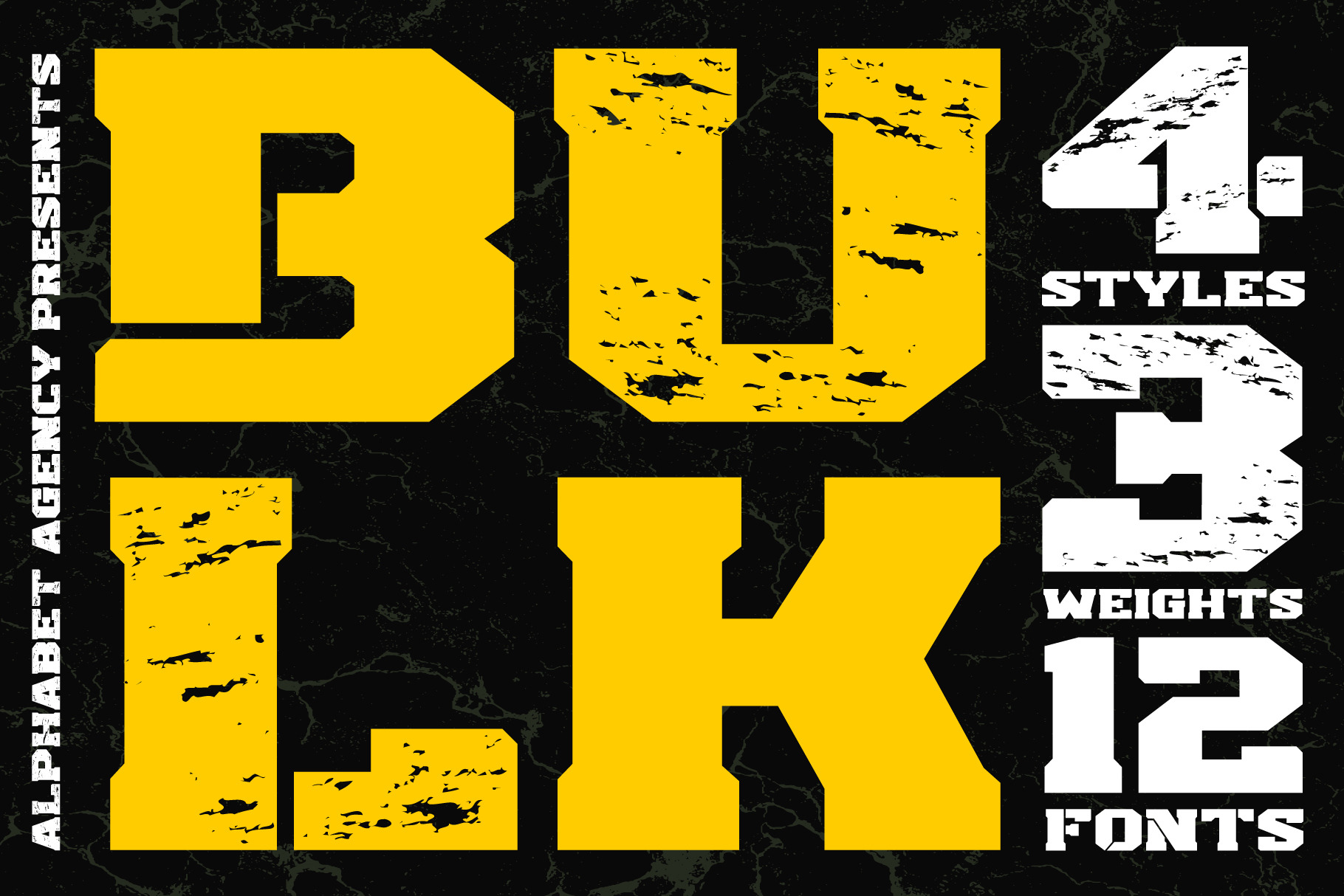
Bulk Font Family contains 12 fonts. The family is made up of 4 styles; regular, stencil, distressed and stencil distressed. Each style comes in 3 weights; semi bold, bold and extra bold.